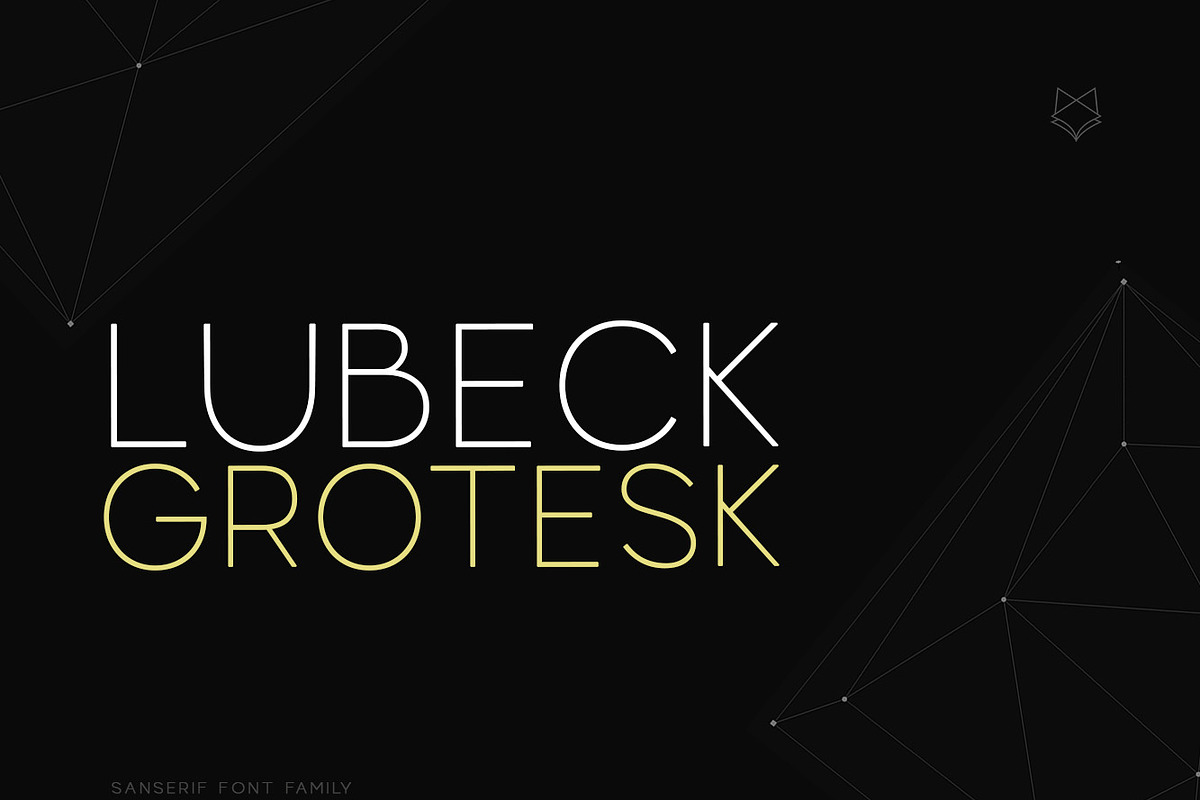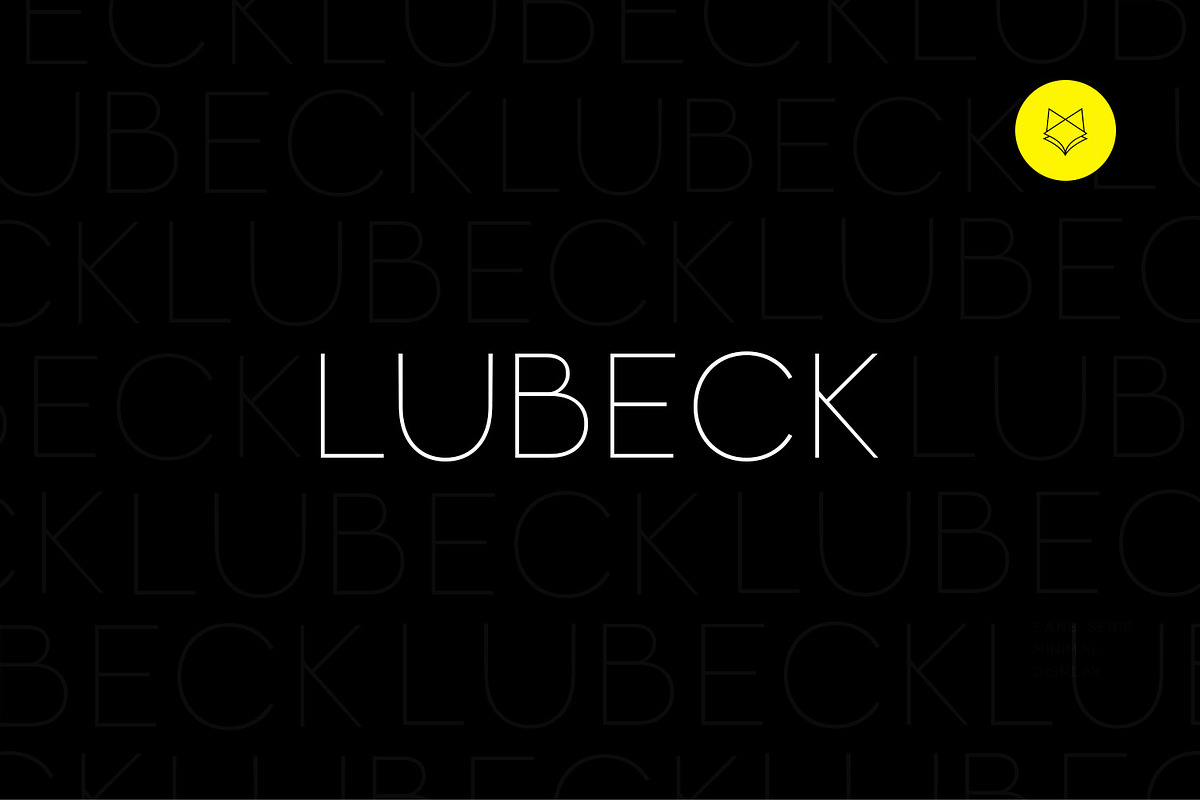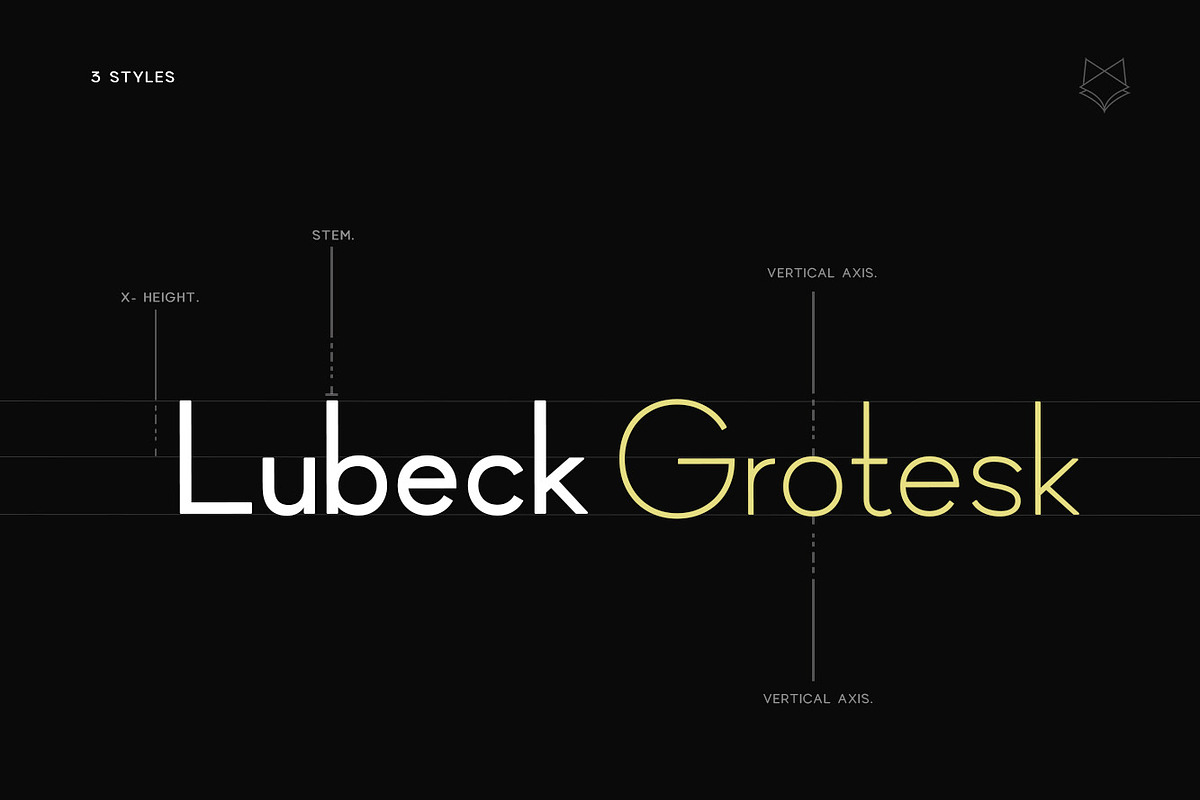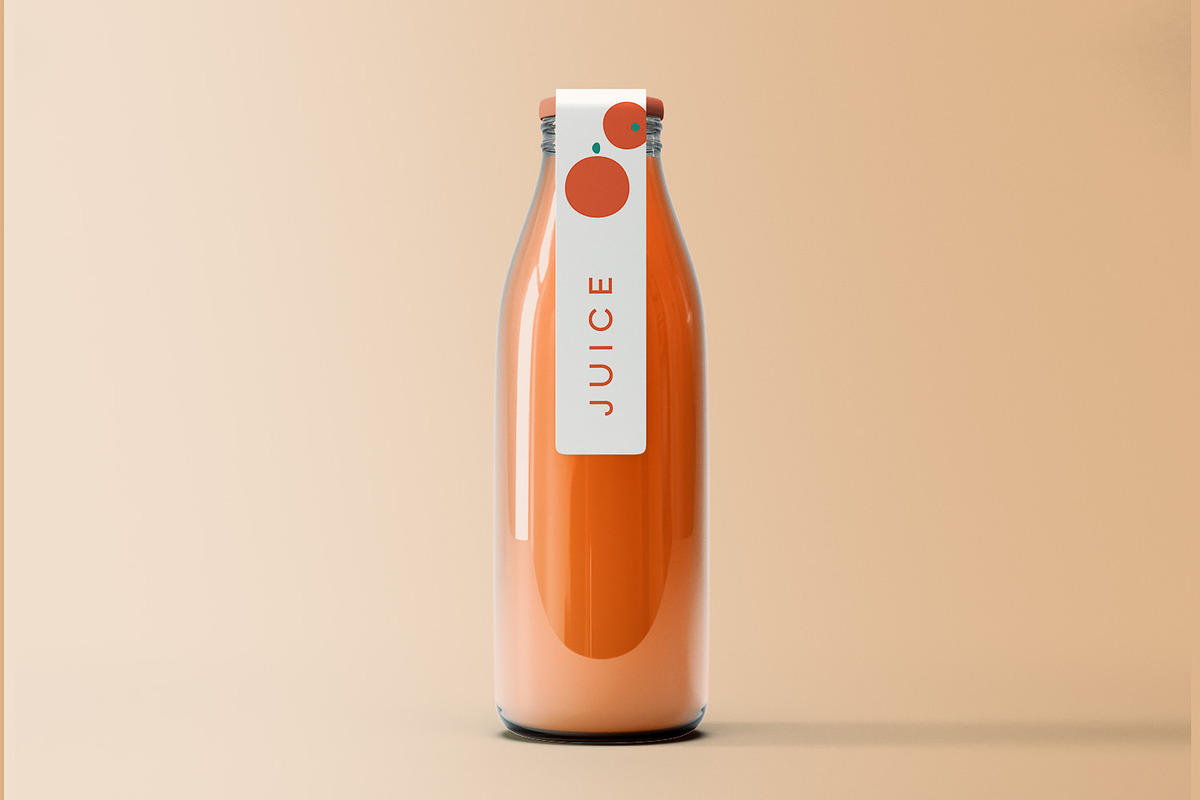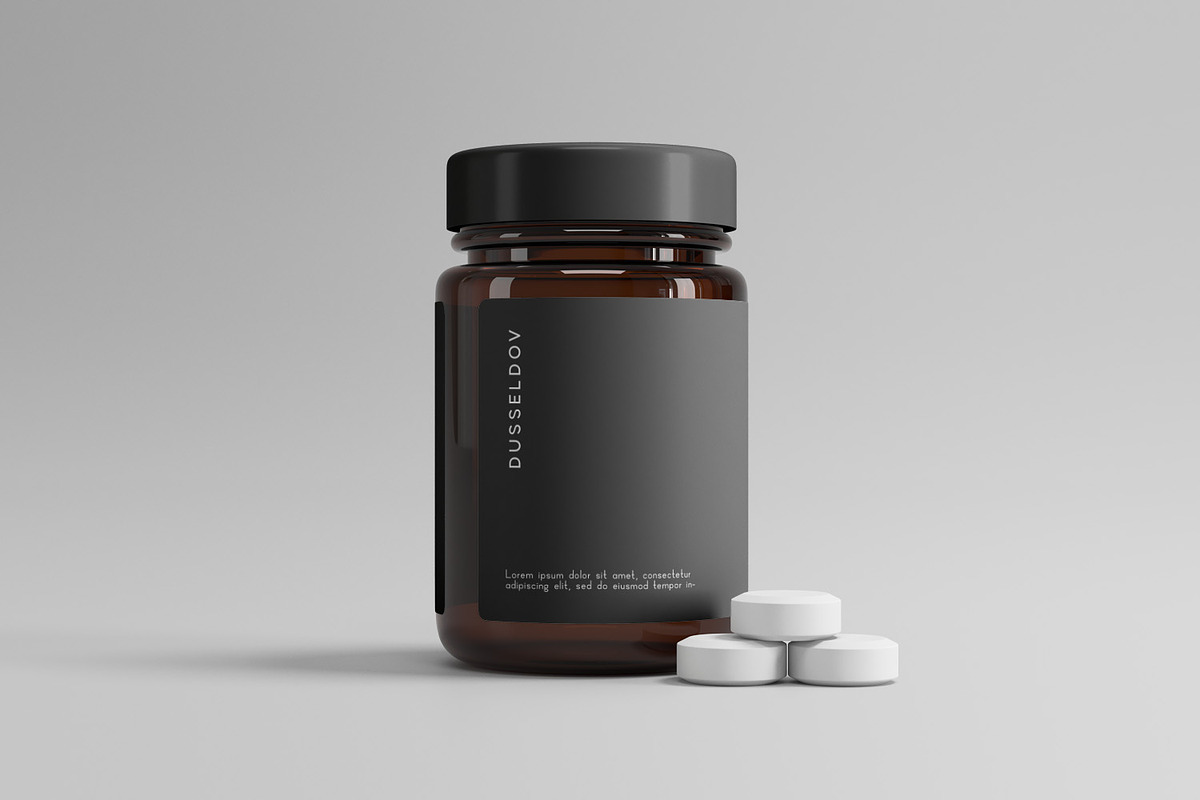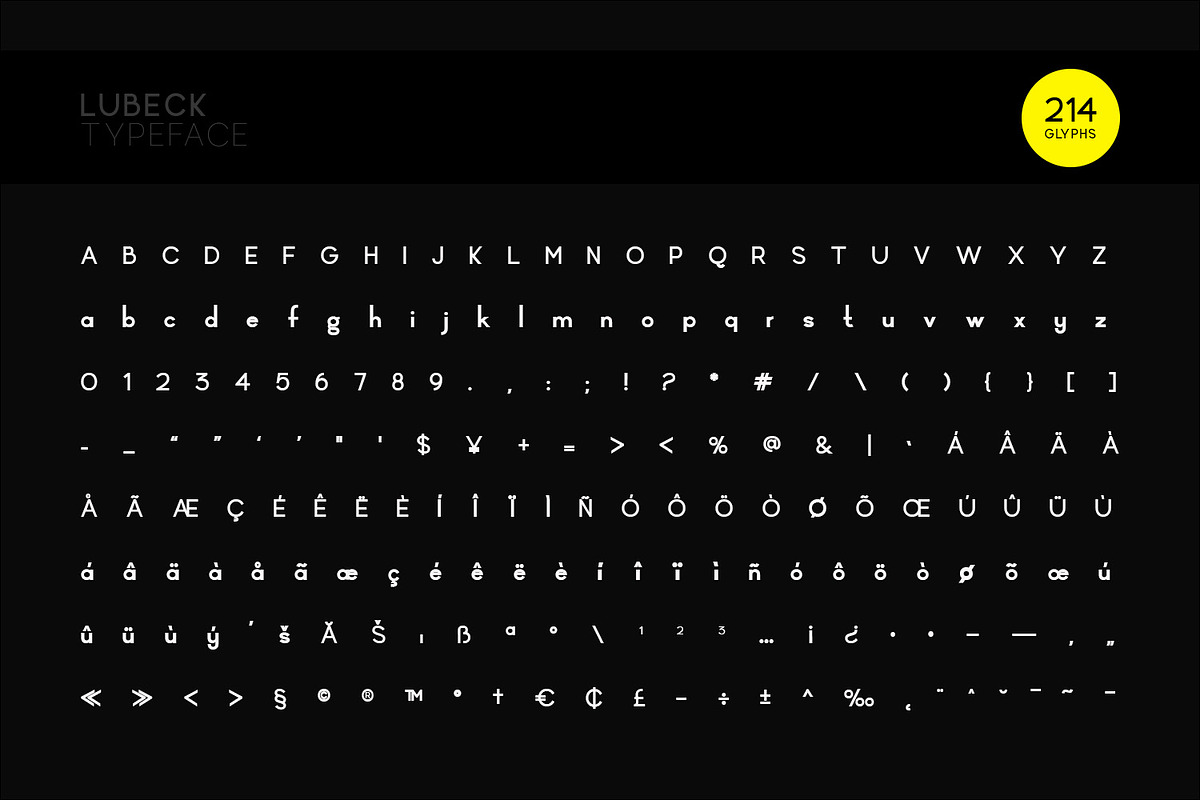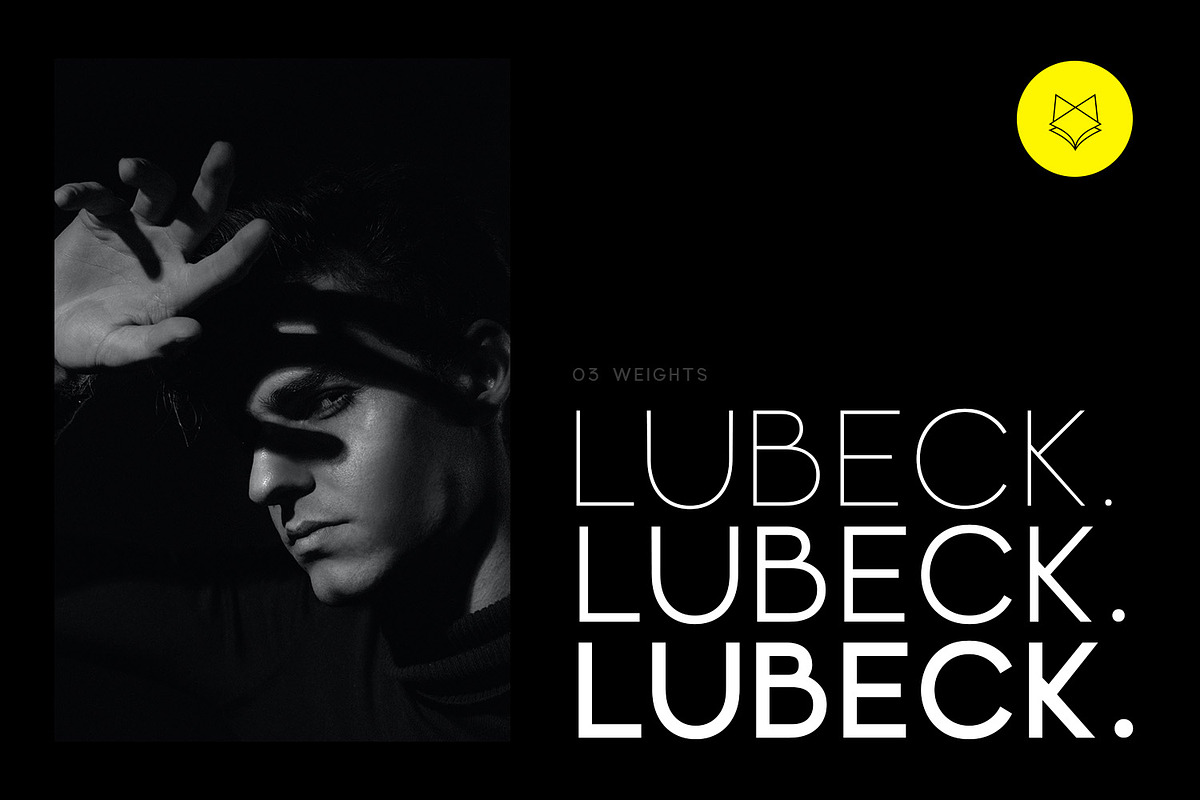
Lubeck Display
Introducing Lubeck Display, new generation Typeface with 3 Weights. Lubeck Typeface created with the vision of to attract the audience to your brand . The finest details of this typeface are methodically and mathematically created. Lubeck is created with all the tasks of a corporate font and also for the usage in a variety of projects, including branding, logos, titles, headlines, servers, screens, display, digital ads, and everything else.
We are putting a lot of effort on this font as a long-term project. The Typeface includes Three Weights. Light, Regular and Medium